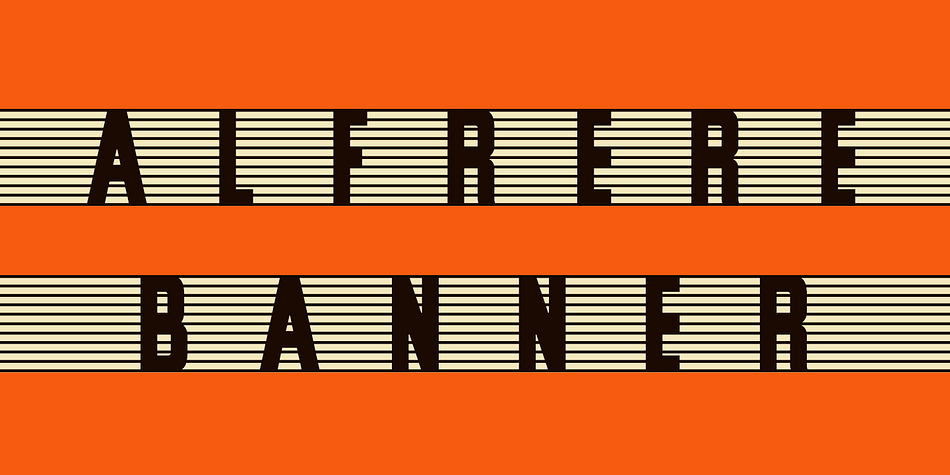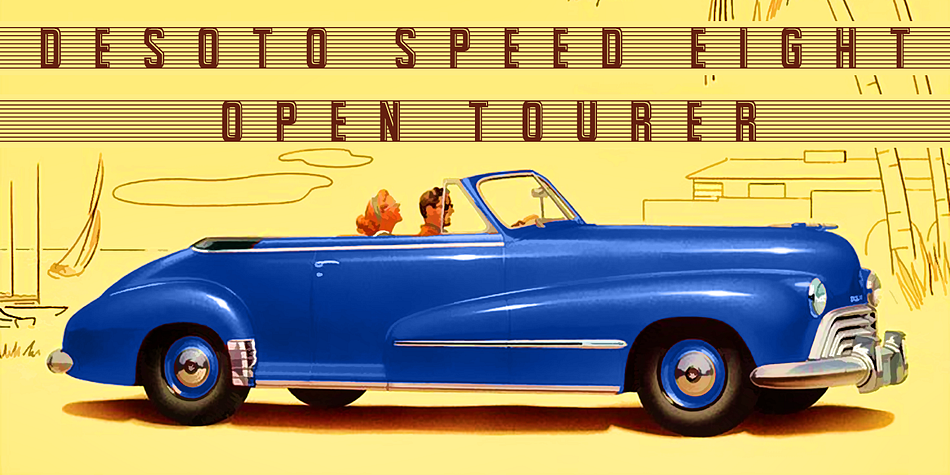
Alfrere Banner is a dingbat and display font family. This typeface has two styles and was published by Greater Albion Typefounders.
Alfrere Banner is a 1950s inspired masthead typeface, designed to complement our ‘Alfrere Sans’ typeface family. These two Banner faces, offered in regular and incised forms, emphasise horizontal lines and have a distinct ’streamline-era’ feel to them.